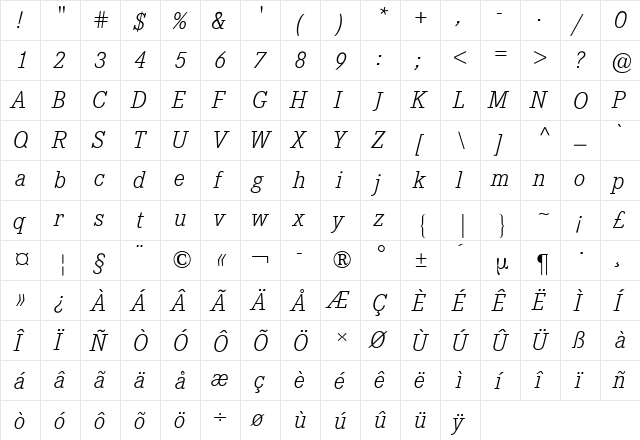
Corporate E BQ Light Italic Font Preview
Design Context for Corporate E BQ Typeface
Corporate E BQ takes a measured approach to typography — its balanced proportions and neutral character make it a reliable workhorse for both digital and print work. The dynamic lean of this cut emphasises speed and emphasis in any layout. Its slender proportions lend an understated elegance to any composition.